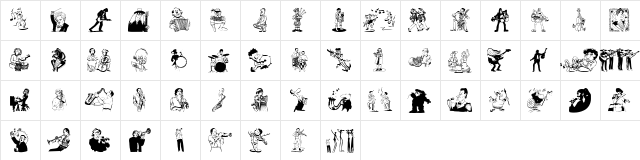
Musikantenstadel Regular
Design Context for Musikantenstadel Typeface
Musikantenstadel is a composed and adaptable typeface that performs quietly and consistently across a wide range of design contexts.